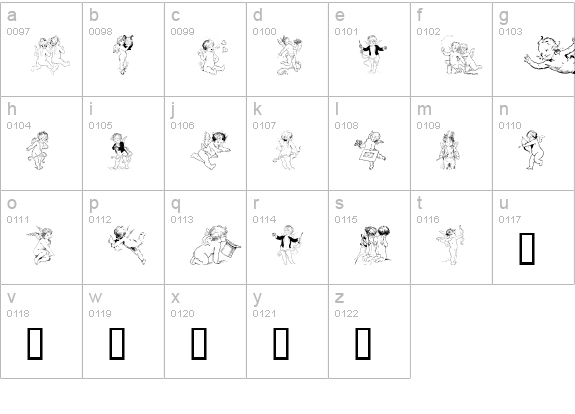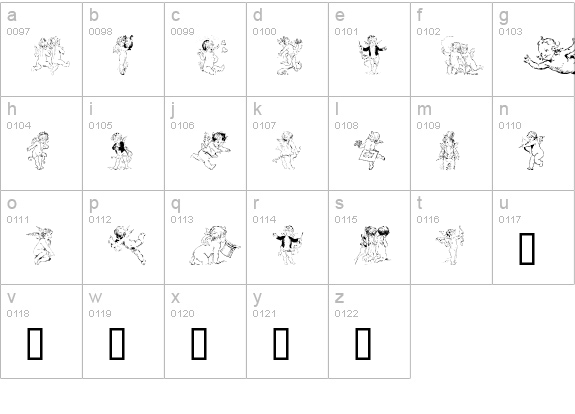
GE Old Fashioned Cherubs Font Details
Introducing GE Old Fashioned Cherubs font, a delightful and whimsical typeface that exudes charm and elegance. Inspired by vintage designs and featuring intricate cherub motifs, this font adds a touch of nostalgia to any project. The intricate details and delicate curves of each letter make it a perfect choice for invitations, greeting cards, and other creative projects. What's even better is that GE Old Fashioned Cherubs font is completely free to download at FontsMarket.com. Whether you're a designer looking to add a unique flair to your work or someone who simply appreciates beautiful typography, this font is sure to captivate and inspire. Download it now and bring a touch of old-world charm to your designs with GE Old Fashioned Cherubs font.